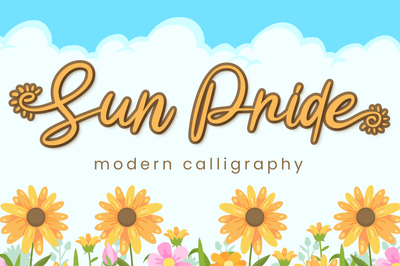
Sun Pride
Sun Pride is script font with beginning and ending swash of sun flower.
suitable for any summer event font!
Sun Pride is perfect for branding, logo, invitation, stationery, social media post, product packaging, merchandise,
blog design, game titles, cute style design, Book/Cover Title and more.
- Beginning & Ending Swash